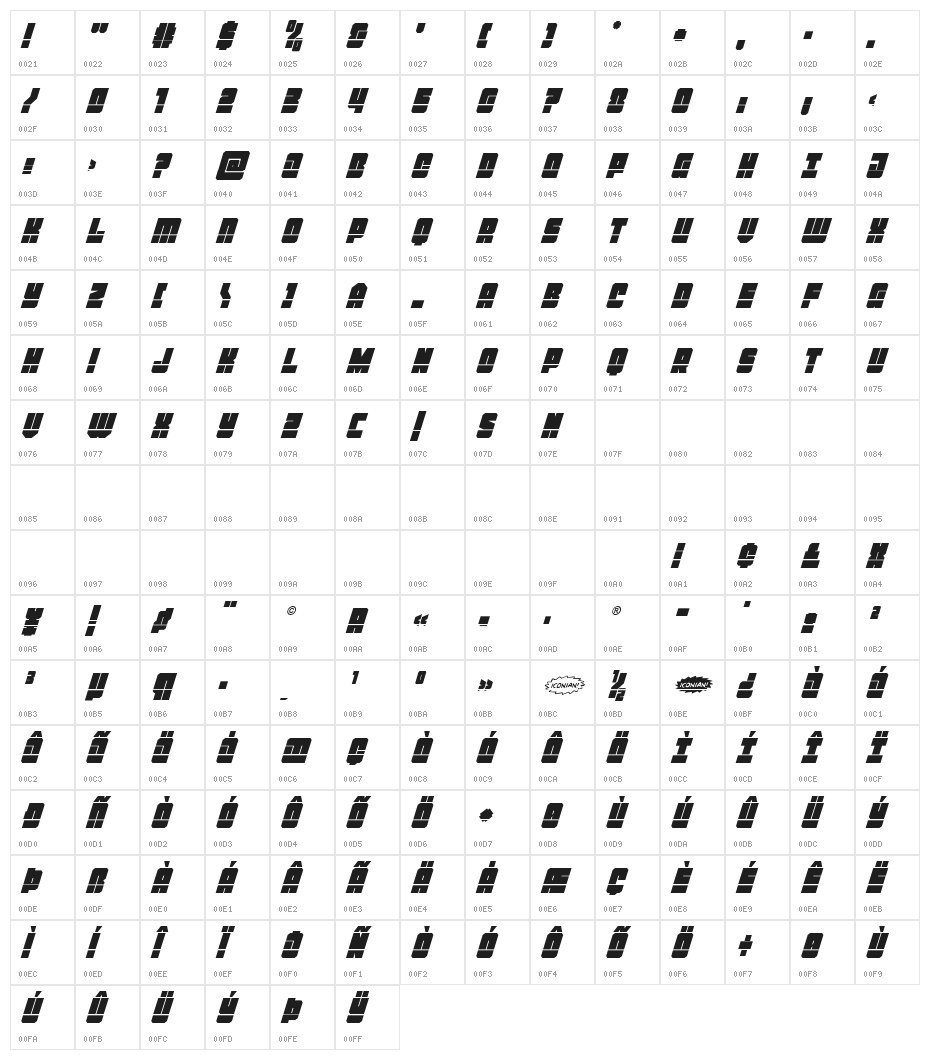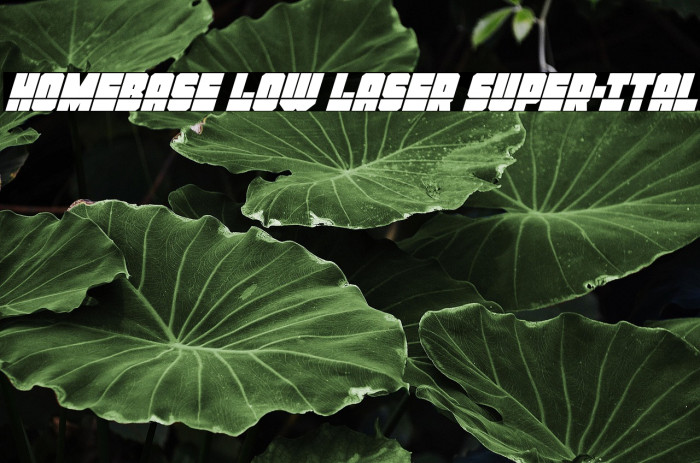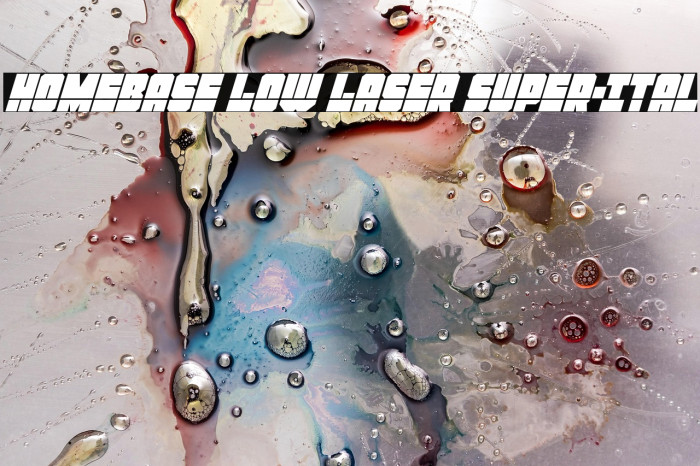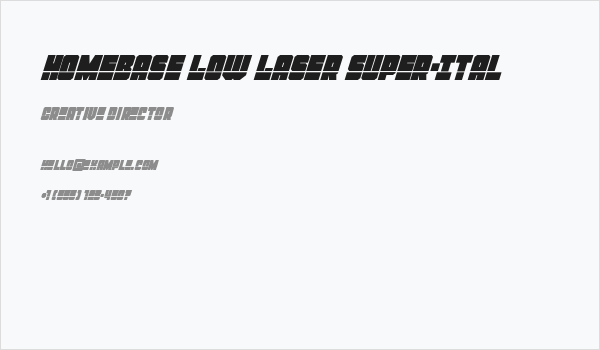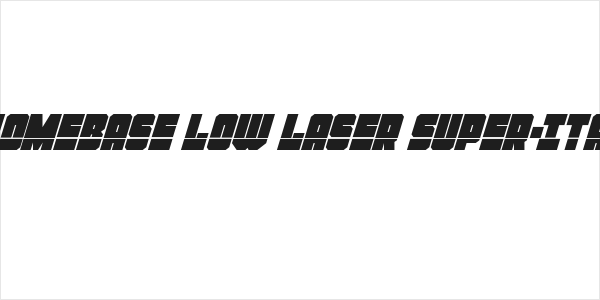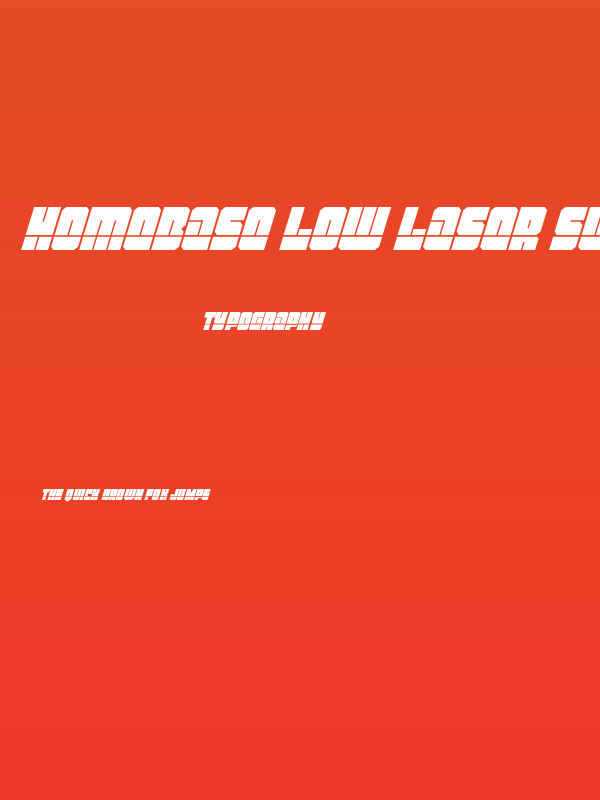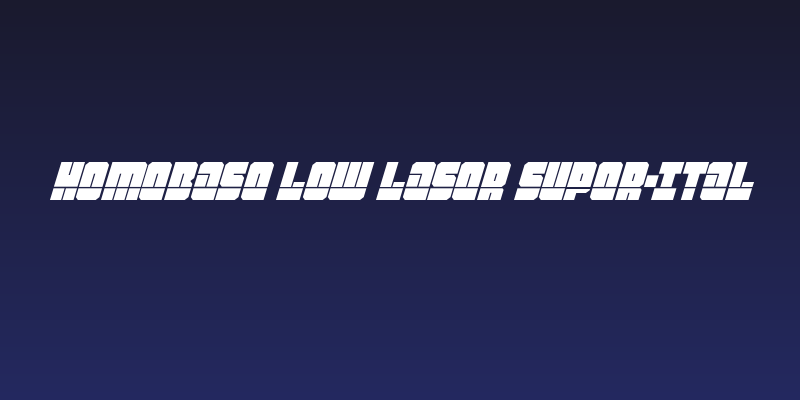
Homebase Low Laser Super-Ital Font
This font features a bold, futuristic design with a strong geometric structure. The characters are wide and blocky, with a distinctive slant that gives them a dynamic, forward-moving appearance. The strokes are thick and uniform, creating a high contrast that enhances readability and impact. The overall style is modern and industrial, making it suitable for projects that require a strong visual presence. The spacing between characters is tight, contributing to its compact and cohesive look.
| Proposed Projects | Ideal for sci-fi themed posters, video game titles, branding for tech companies, and any project needing a modern, impactful typeface. |